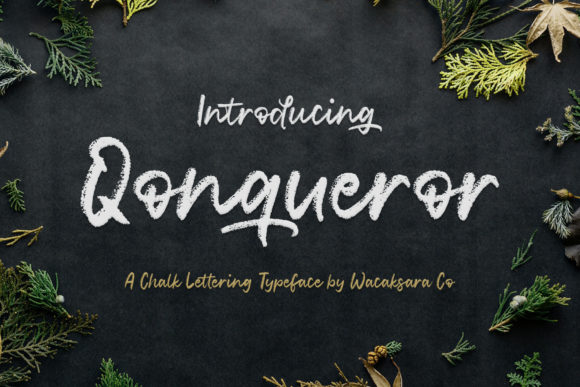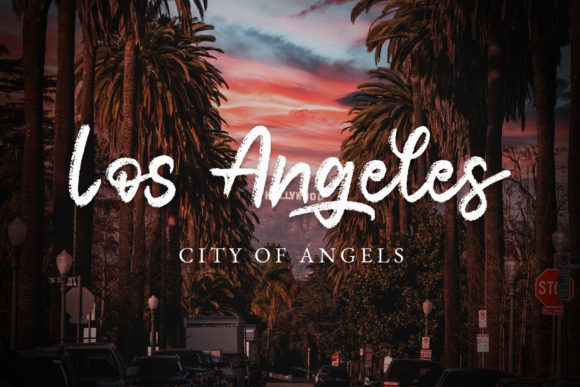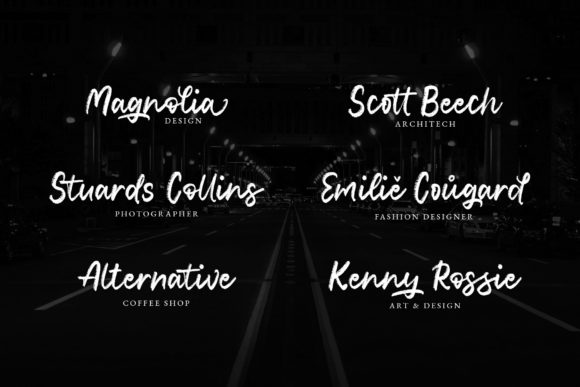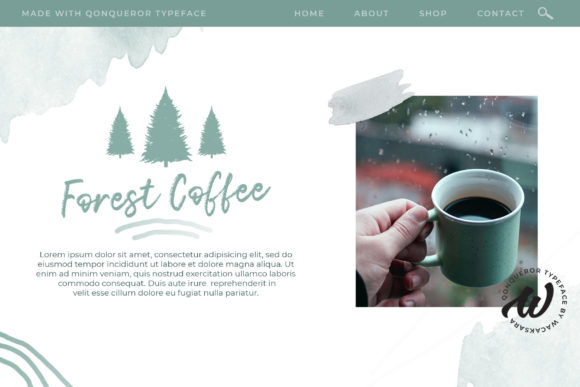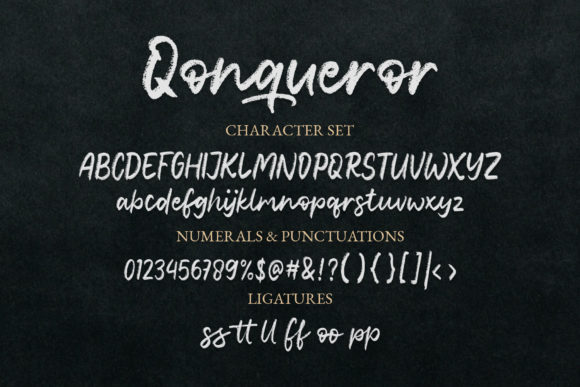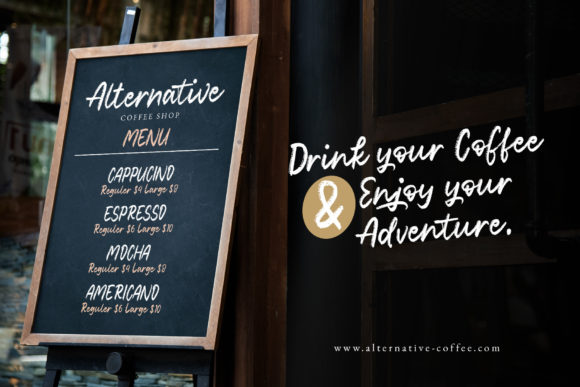
About Qonqueror Font
Qonqueror is a cool, brushed and adaptable handwritten font. It looks beautiful on a variety of designs requiring a personalized style, such as wedding invitations, thank you cards, weddings, greeting cards, logos and so on.